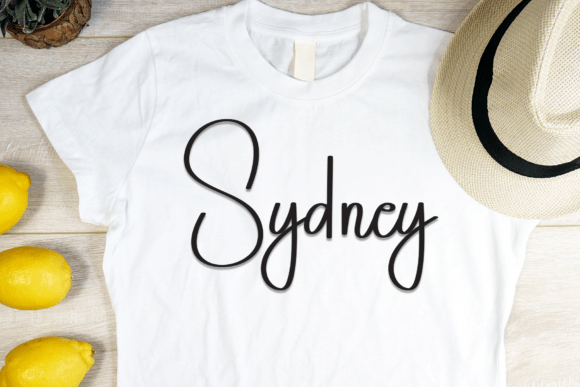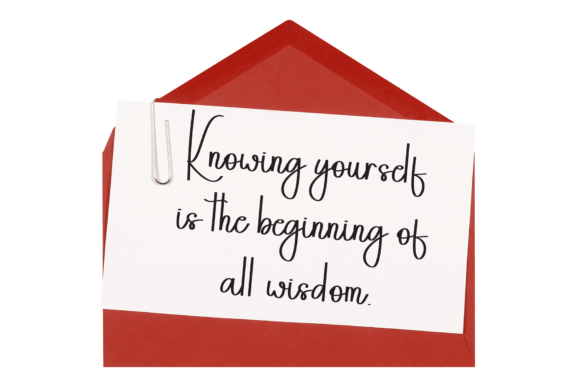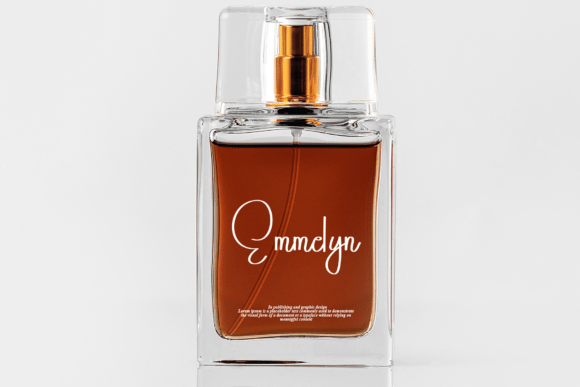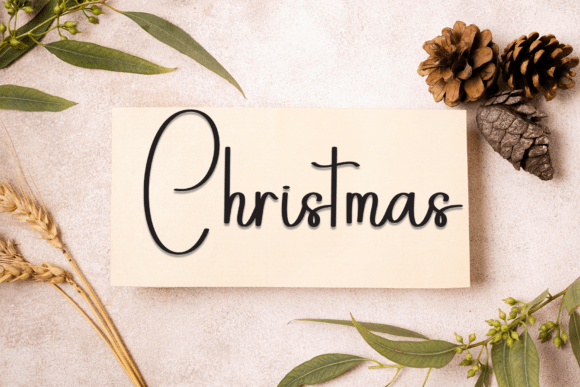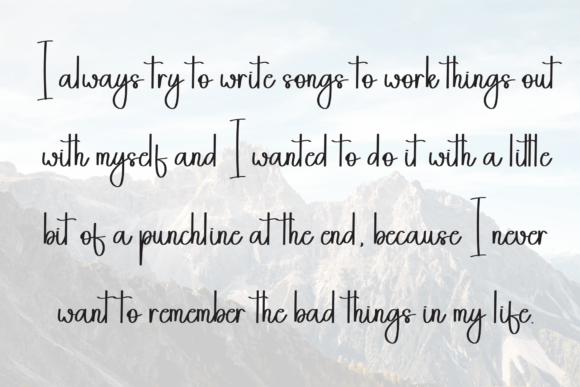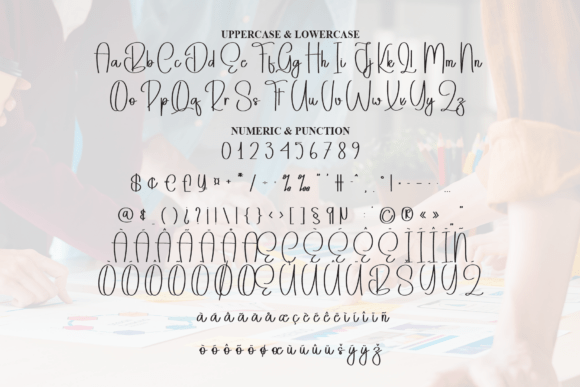
Unleash Your Creativity with the Creative Font: A Stylish Script Font for Modern Designers
In the world of typography, fonts play a crucial role in conveying the tone and personality of a design. For designers and crafters looking to add a touch of artistic flair and contemporary elegance to their work, the Creative font is an excellent choice. This stylish script font is designed to capture the essence of hand-painted calligraphy with a modern twist, making it perfect for a wide range of design applications.
What Makes the Creative Font Stand Out?
The Creative font boasts fluid brush strokes, dynamic curves, and expressive letterforms that give it a unique and sophisticated look. Its natural flow and vibrant character make it an ideal choice for designers who want to add a creative and elegant touch to their work. Whether you’re designing a logo, invitation, packaging, or social media graphics, this font is sure to deliver both visual impact and versatility.
Key Features of the Creative Font
- Fluid Brush Strokes: The Creative font features fluid brush strokes that give it a natural, hand-painted look.
- Dynamic Curves: The font’s dynamic curves add a touch of elegance and sophistication to any design.
- Expressive Letterforms: Each letterform is carefully crafted to convey a sense of artistic flair and creativity.
- Modern Twist: The font’s modern twist sets it apart from traditional calligraphy fonts, making it perfect for contemporary designs.
The Creative font is an excellent choice for designers and crafters who want to add a touch of elegance and sophistication to their work. Here are some design applications where this font truly shines:
- Logos: The Creative font is perfect for creating unique and memorable logos that stand out from the crowd.
- Invitations: Add a touch of elegance and sophistication to your invitations, whether it’s a wedding invitation or a birthday party invite.
- Packaging: The font’s creative and modern look makes it perfect for packaging designs that require a touch of artistic flair.
- Social Media Graphics: Use the Creative font to create stunning social media graphics that grab attention and convey your brand’s personality.
Why Choose the Creative Font?
With so many fonts available, why choose the Creative font? Here are a few reasons why designers and crafters love this font:
- Unique and Memorable: The Creative font is designed to be unique and memorable, making it perfect for brands that want to stand out.
- Versatile: The font’s natural flow and vibrant character make it versatile enough to use in a wide range of design applications.
- Elegant and Sophisticated: The font’s elegant and sophisticated look makes it perfect for designers who want to add a touch of luxury to their work.
Tips for Using the Creative Font
Here are a few tips for using the Creative font in your designs:
- Experiment with Font Sizes: The Creative font looks great in a variety of font sizes, so don’t be afraid to experiment to find the perfect size for your design.
- Pair it with Other Fonts: The font pairs well with other fonts, so try pairing it with a sans-serif font for a modern look.
- Use it for Headlines: The Creative font is perfect for headlines and titles, so use it to add a touch of elegance and sophistication to your design.
In conclusion, the Creative font is a stylish script font that exudes artistic flair and contemporary elegance. With its fluid brush strokes, dynamic curves, and expressive letterforms, it’s perfect for designers and crafters who want to add a creative and sophisticated touch to their work. Whether you’re designing a logo, invitation, packaging, or social media graphics, this font is sure to deliver both visual impact and versatility.